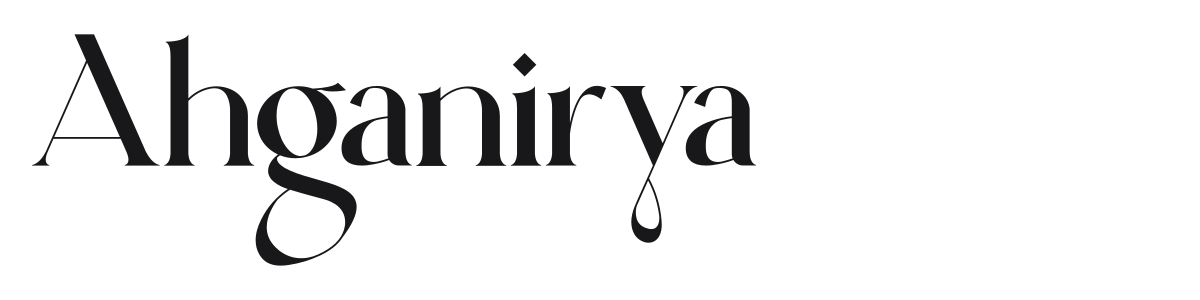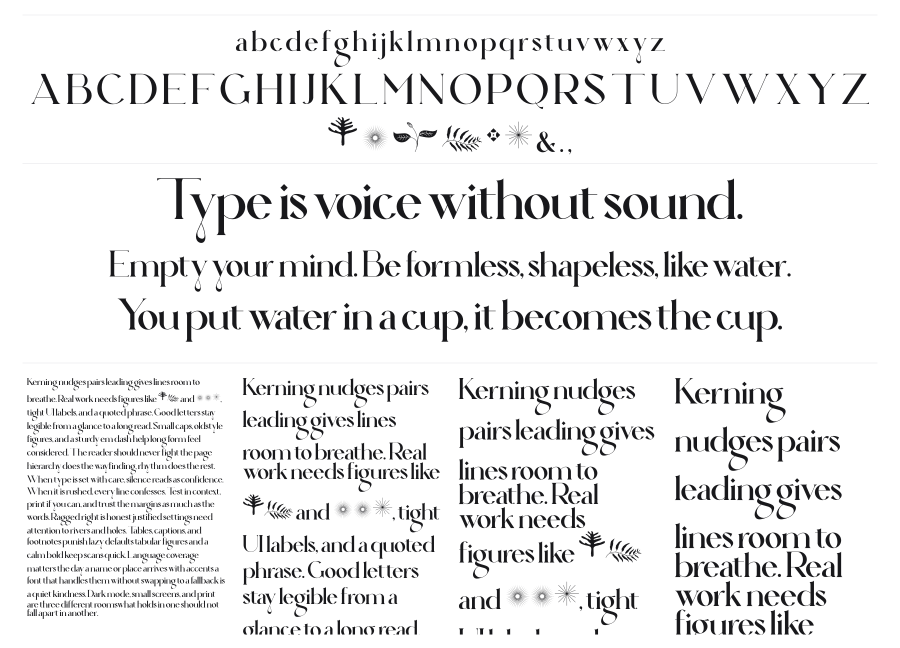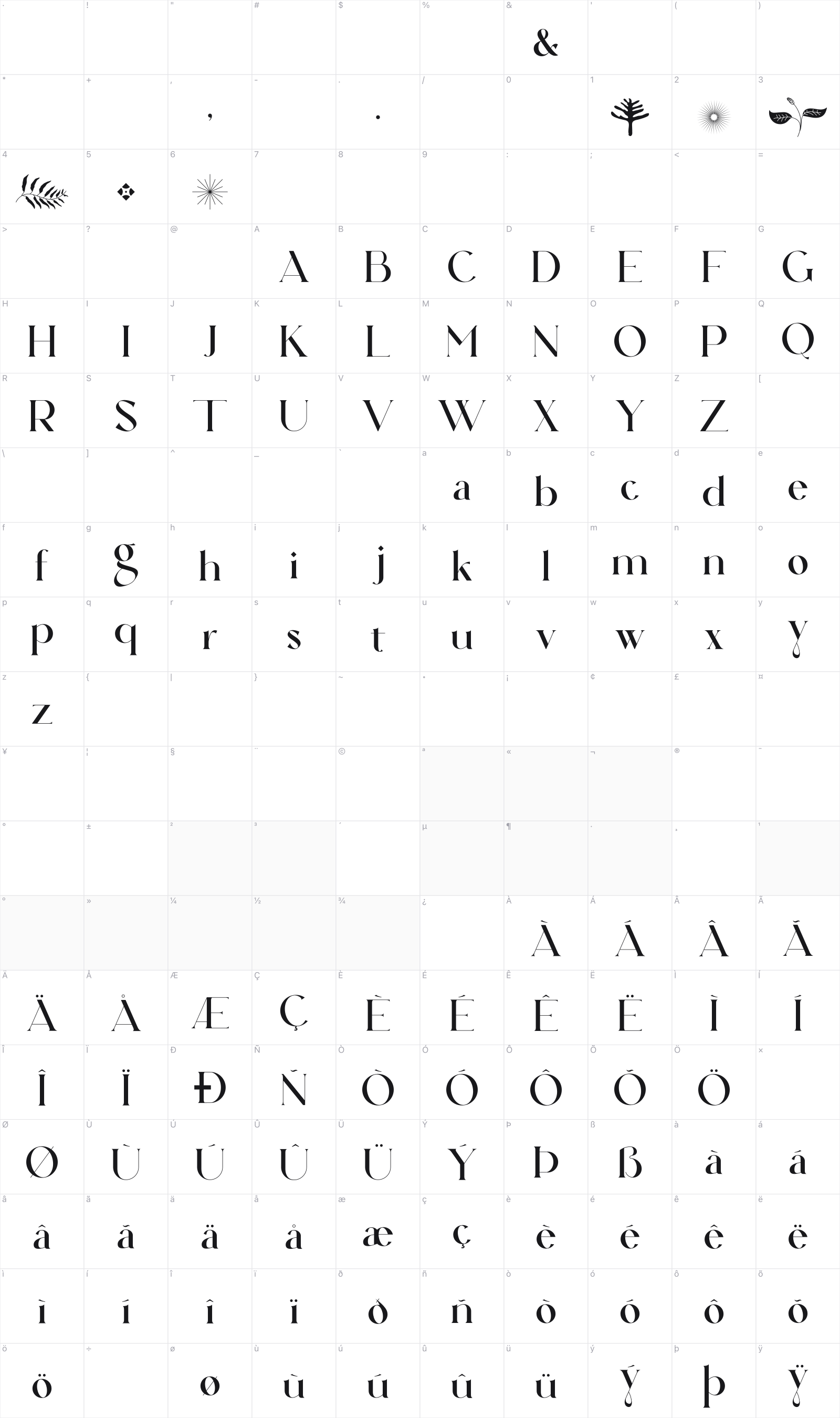
Ahganirya
Ahganirya is a high-contrast modern serif that draws from the Didone tradition, with hairline-thin strokes that shift dramatically into heavy stems. A graceful ball terminal on the descender adds a calligraphic touch that sets it apart from a plain geometric modern. Built for fashion editorials, luxury branding, and anywhere elegance needs to make a statement at size.